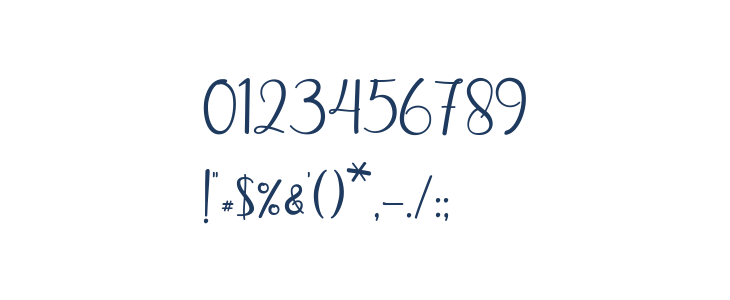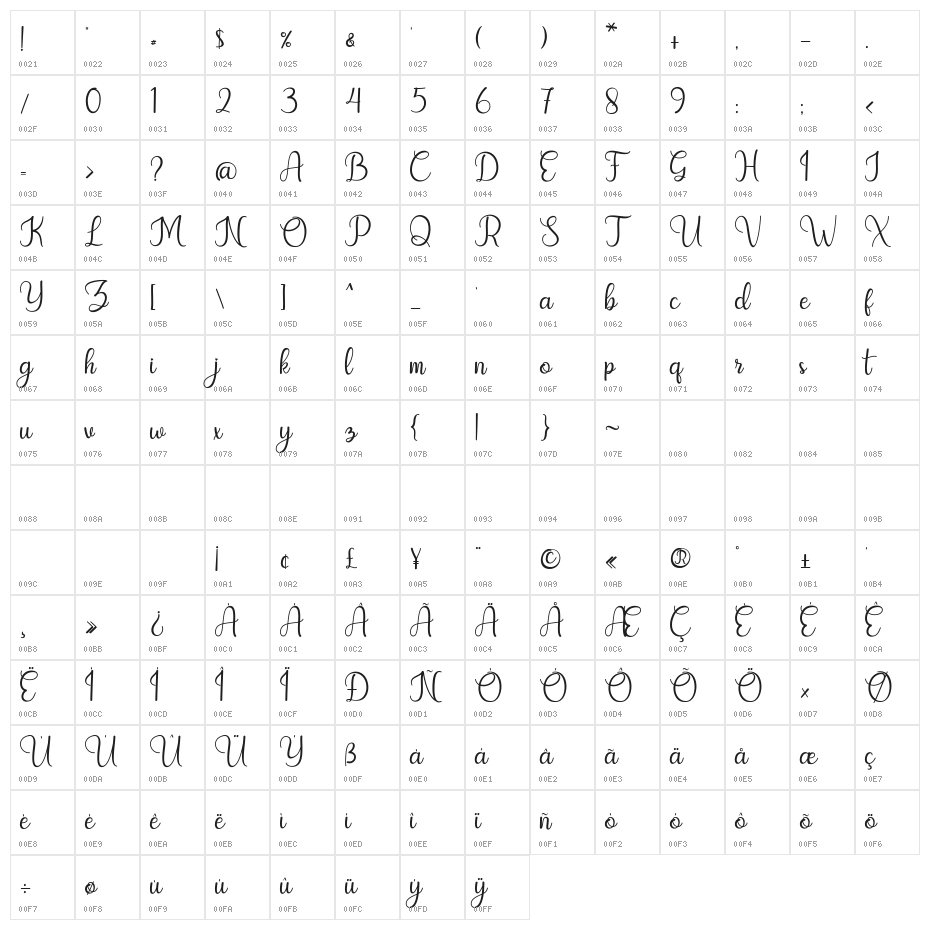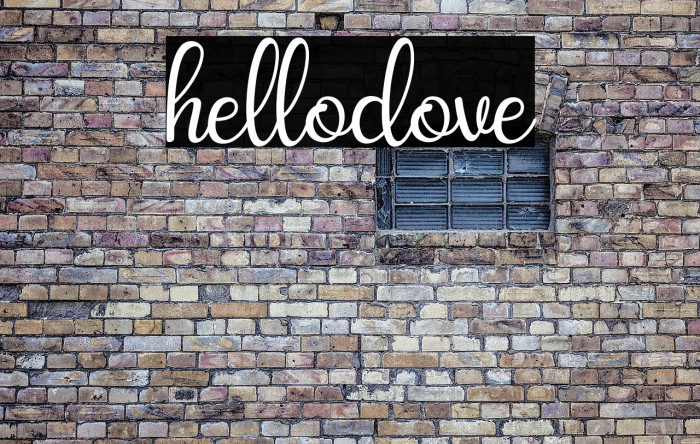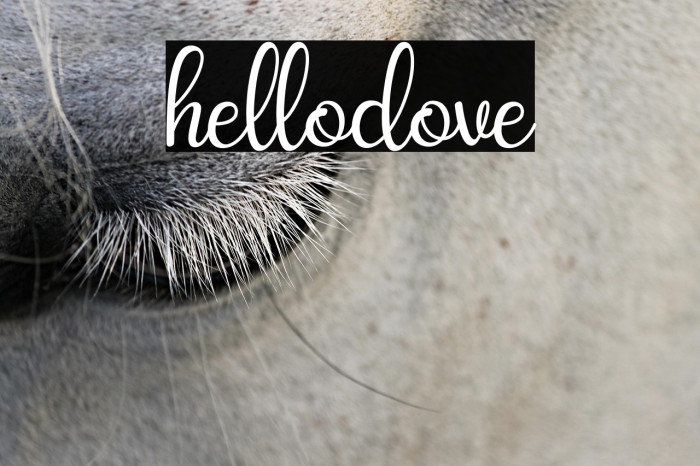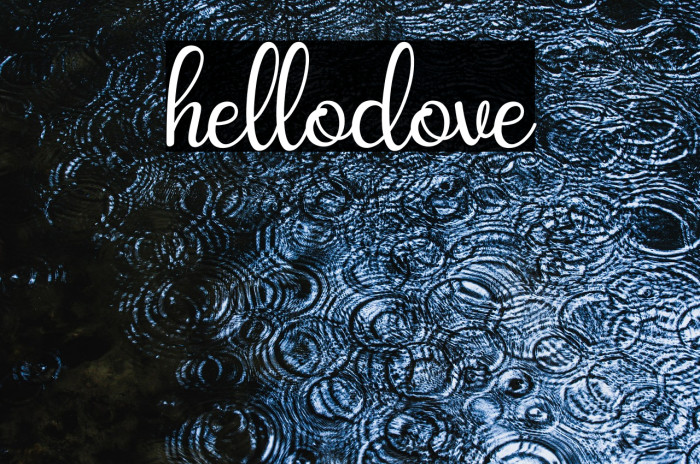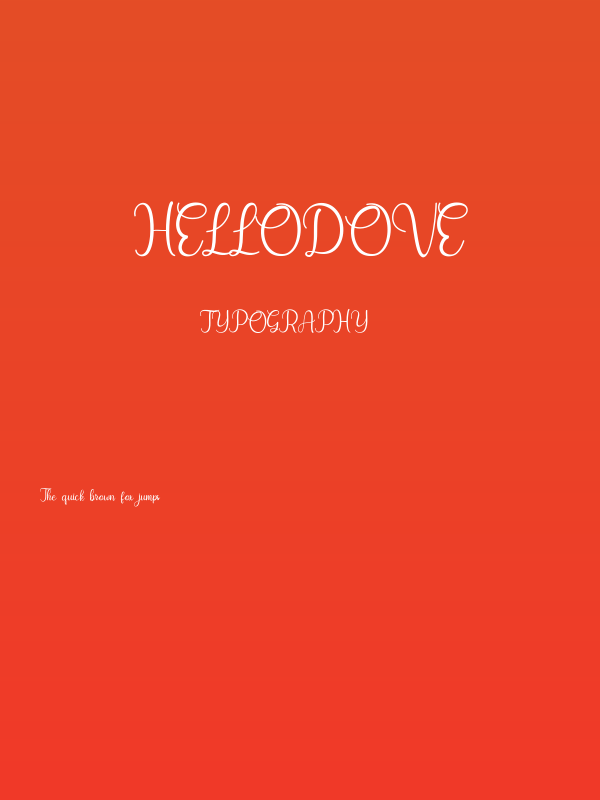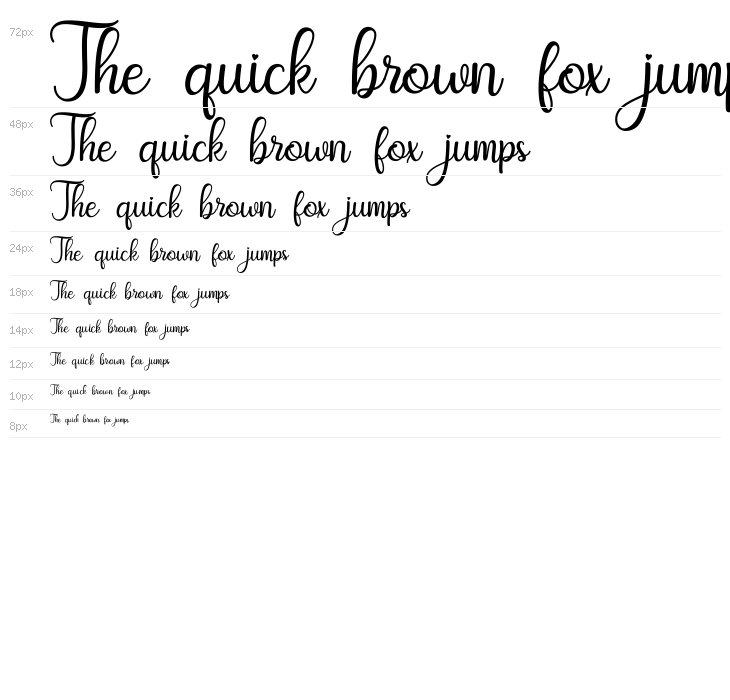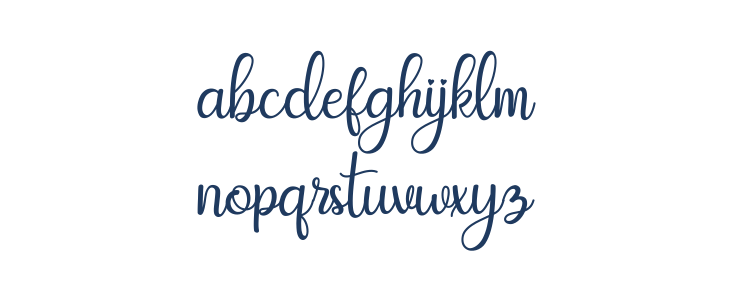
hellodove Font
hellodove Description
This font features a charming and elegant script style with a handwritten appearance. The uppercase letters are tall and graceful, with smooth, flowing lines that give a sense of sophistication and fluidity. The lowercase letters maintain this fluidity, with some letters featuring loops and curls that enhance the handwritten feel. The numerals are consistent with the overall style, offering a playful yet refined look. Special characters are well-integrated, maintaining the font's cohesive aesthetic. This font is perfect for projects that require a personal touch, such as invitations, greeting cards, and branding materials.
| Overall Style | Elegant, Handwritten |
| Use Case | Headlines, Invitations, Branding |
| Proposed Projects | Ideal for wedding invitations, personal branding, greeting cards, and elegant packaging. |